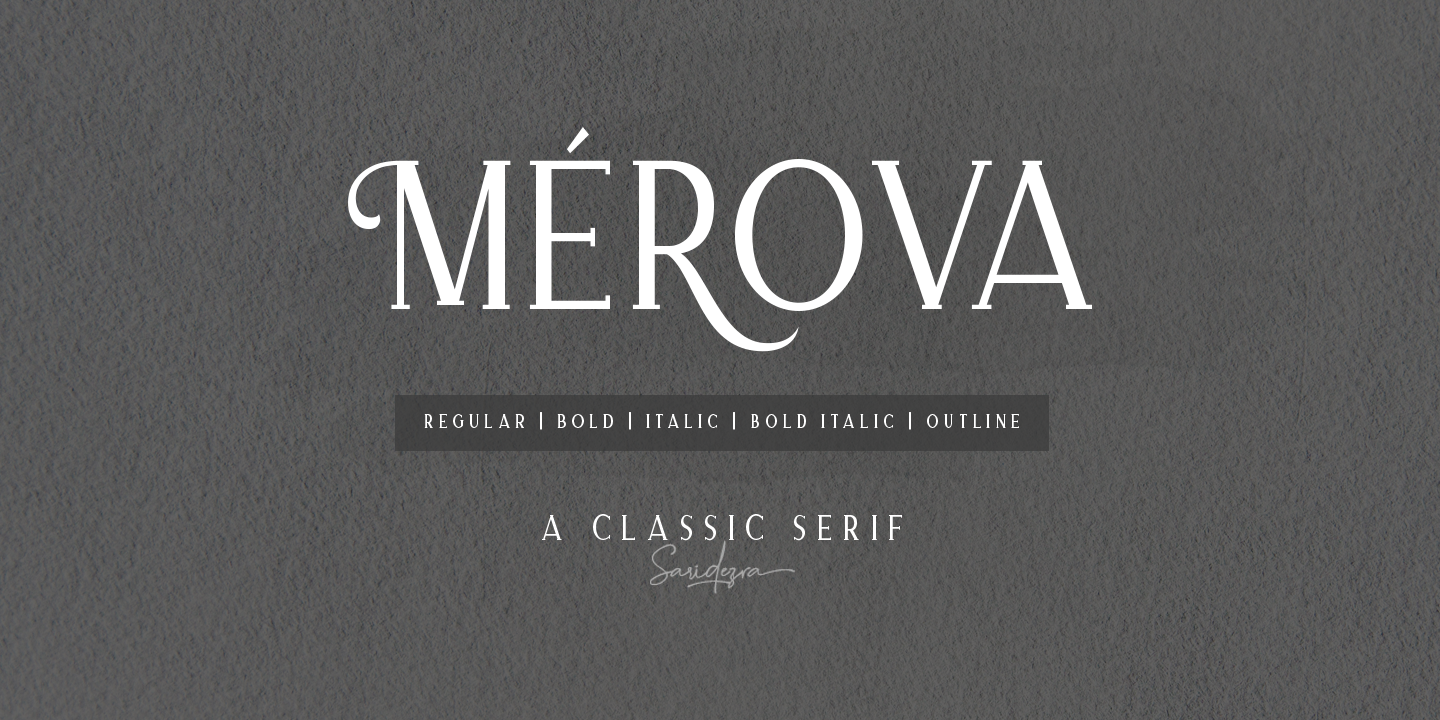
Merova Font is ideal for medieval-themed entertainment venues, fantasy gaming graphics, historical museum exhibitions, renaissance festival materials, gothic architectural signage, and ancient manuscript reproductions.
Merova Font is exciting because it captures the majestic grandeur and royal authority of medieval kingdoms, delivering a powerful typeface that embodies ancient nobility, chivalric honor, and the timeless mystique of the Dark Ages.
The Merova Font family includes medieval variations: Merova Light, Merova Regular, Merova Bold, Merova Black, illuminated alternates, and decorative elements inspired by Carolingian manuscripts and medieval royal seals.
Rule with ancient authority using Merova Font Free Download, a majestically crafted typeface that brings medieval grandeur and royal heritage to your most epic historical design projects. This commanding font excels in creating authentic branding for medieval reenactment groups, historical societies, fantasy entertainment companies, and educational institutions that preserve and celebrate the rich cultural legacy of medieval Europe. The powerfully designed letterforms feature strong geometric foundations with subtle references to medieval illuminated manuscripts and royal proclamations that communicate authority, tradition, and timeless strength while ensuring excellent readability across all historical applications. Perfect for historical documentary graphics, medieval-themed restaurants, educational textbooks, and cultural heritage materials that need to evoke the grandeur and mystery of ancient kingdoms, this font connects with audiences fascinated by medieval history and chivalric traditions. Each character stands with royal dignity, making every historical message feel like a royal decree issued from the throne of a mighty medieval kingdom. Merova Font transforms historical communications into majestic proclamations that honor medieval heritage while inspiring reverence for the courage and wisdom of our ancestors.